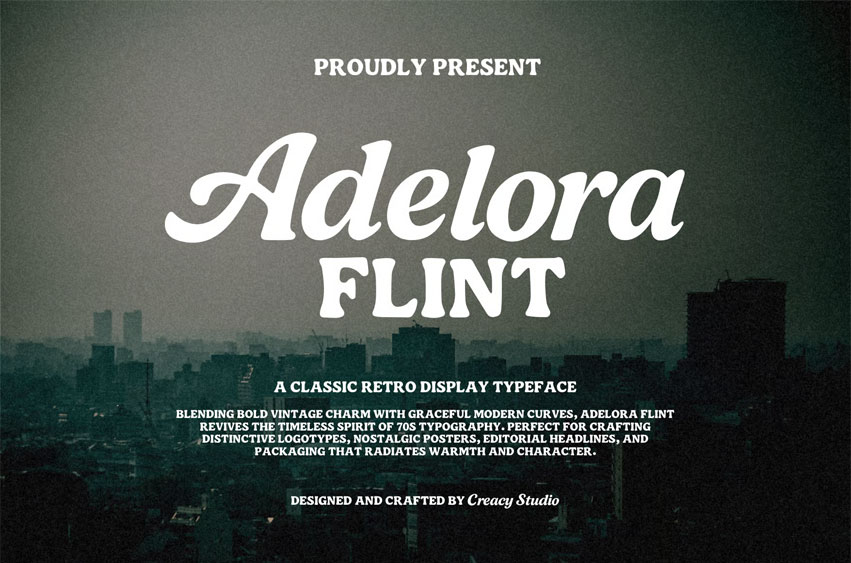
Adelora Flint Font
Adelora Flint Font is a timeless retro display typeface that blends nostalgic warmth with graceful modern curves. Inspired by the golden era of 70s design, it delivers both vintage character and modern versatility — perfect for branding, packaging, posters, and editorial projects.
The family includes both Script and Sans styles, crafted to complement each other beautifully. The bold letterforms evoke a handmade charm while maintaining a polished and professional aesthetic for contemporary use.
Bring a touch of sunlit nostalgia and editorial sophistication to your next creative project with Adelora Flint.
• Adelora Flint Script & Sans
• Uppercase & Lowercase Letters
Ideal For
• Logotypes & Branding
• Editorial Titles
• Vintage Packaging
• Posters & Signage
• Lifestyle & Travel Design